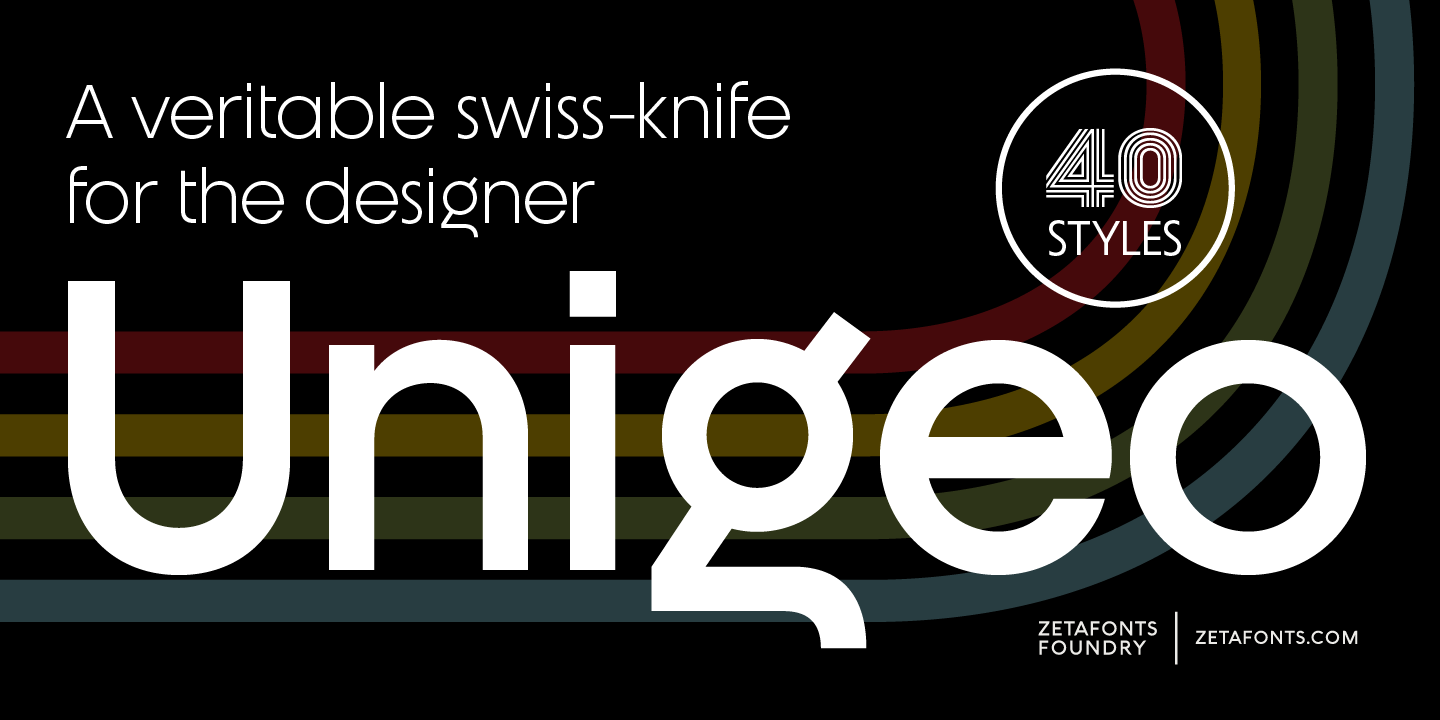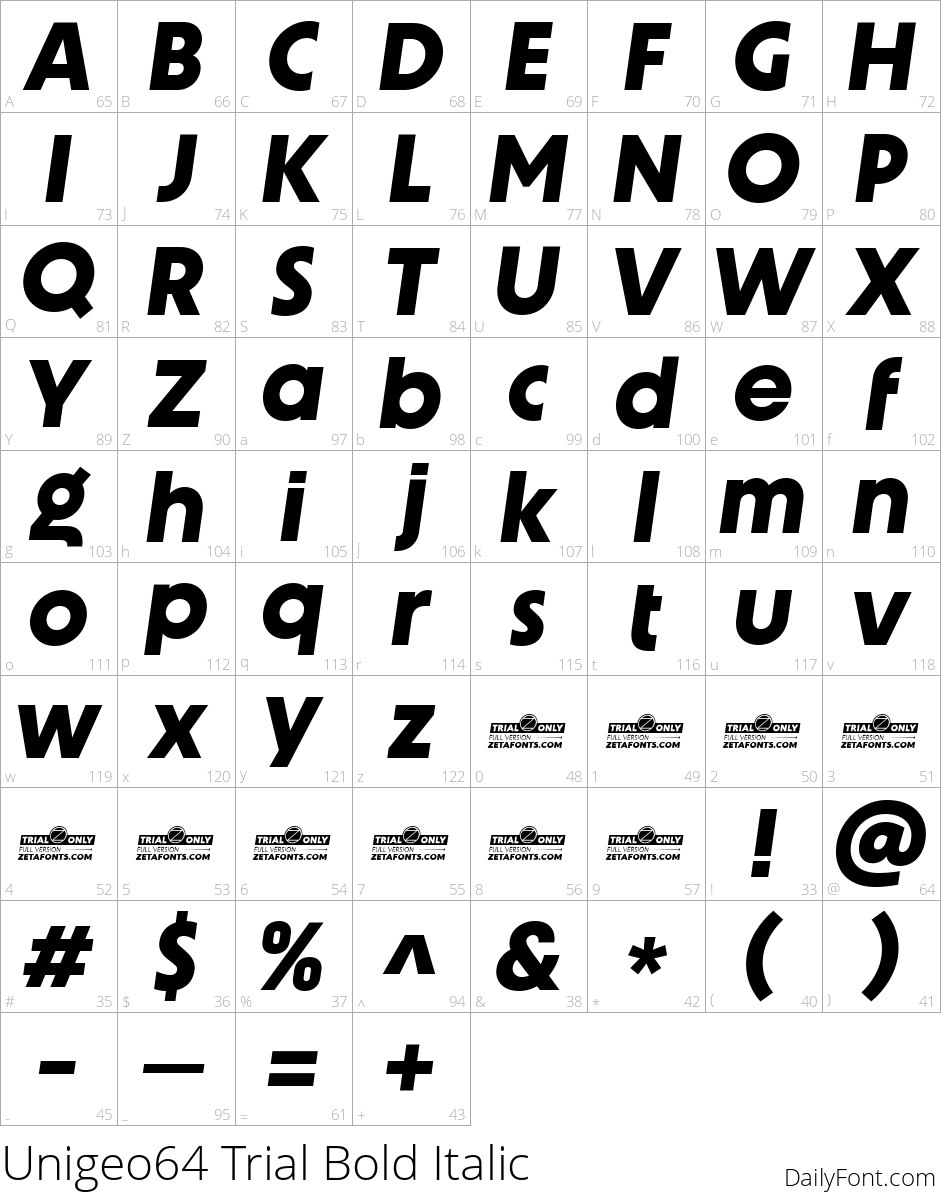
Unigeo
Unigeo comes from the Italian foundry Zetafonts, designed by Cosimo Lorenzo Pancini and Francesco Canovaro. It's a geometric sans built around a single idea: what an old computer terminal font might look like if it grew up into a full professional typeface.
The family ships as three distinct builds, playfully labeled after old console memory sizes. Unigeo 64 is the original display-focused build, with tight spacing and the most retro, photo-lettering character. Unigeo 32 relaxes those same shapes into a more neutral geometric sans built for body text and logo work alike. Unigeo 128 takes the same letter skeleton and adds a striped, optical-art fill reminiscent of old computer logos.
Each build comes in eight weights, from Thin to Extrabold - 40 styles in total - plus a variable font version, so you get one continuous weight axis instead of picking a fixed style. Character coverage extends past Latin to Cyrillic and Greek, and the OpenType feature set includes ligatures, alternates, and positional numerals for detailed typesetting work.
Unigeo suits tech branding, retro-gaming projects, or any logo that wants a geometric sans with some vintage-computing personality instead of a plain neutral grid.